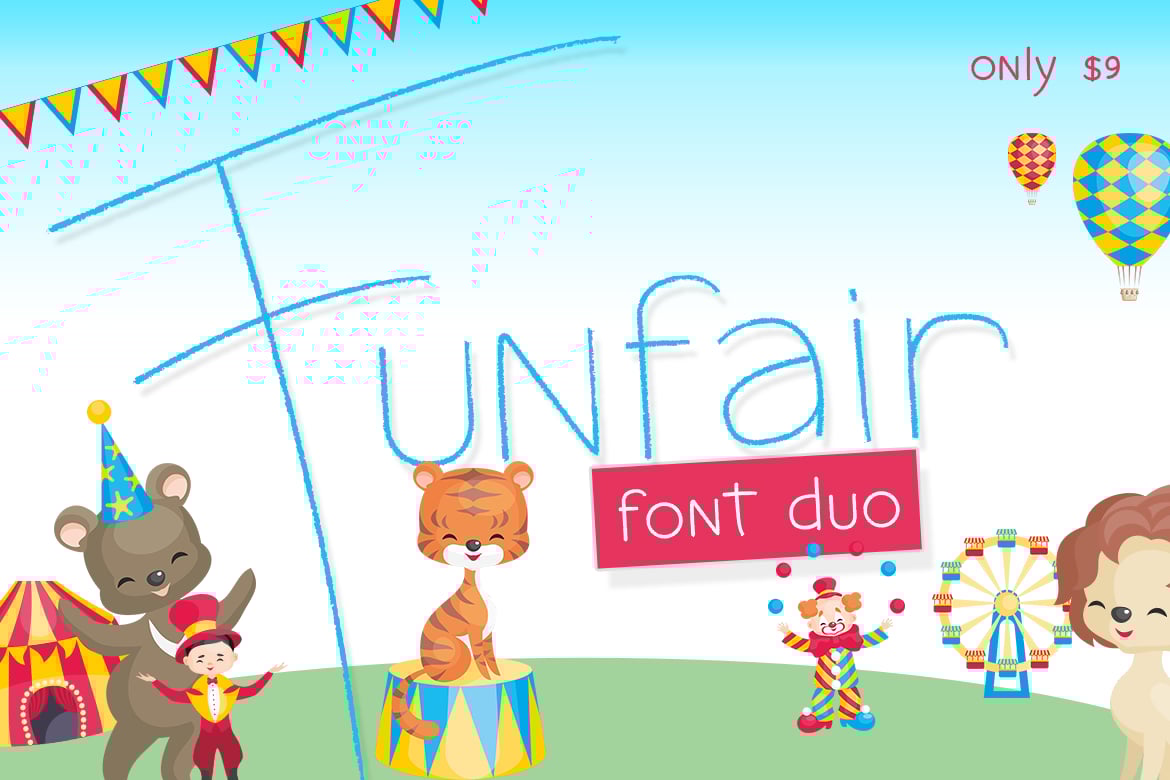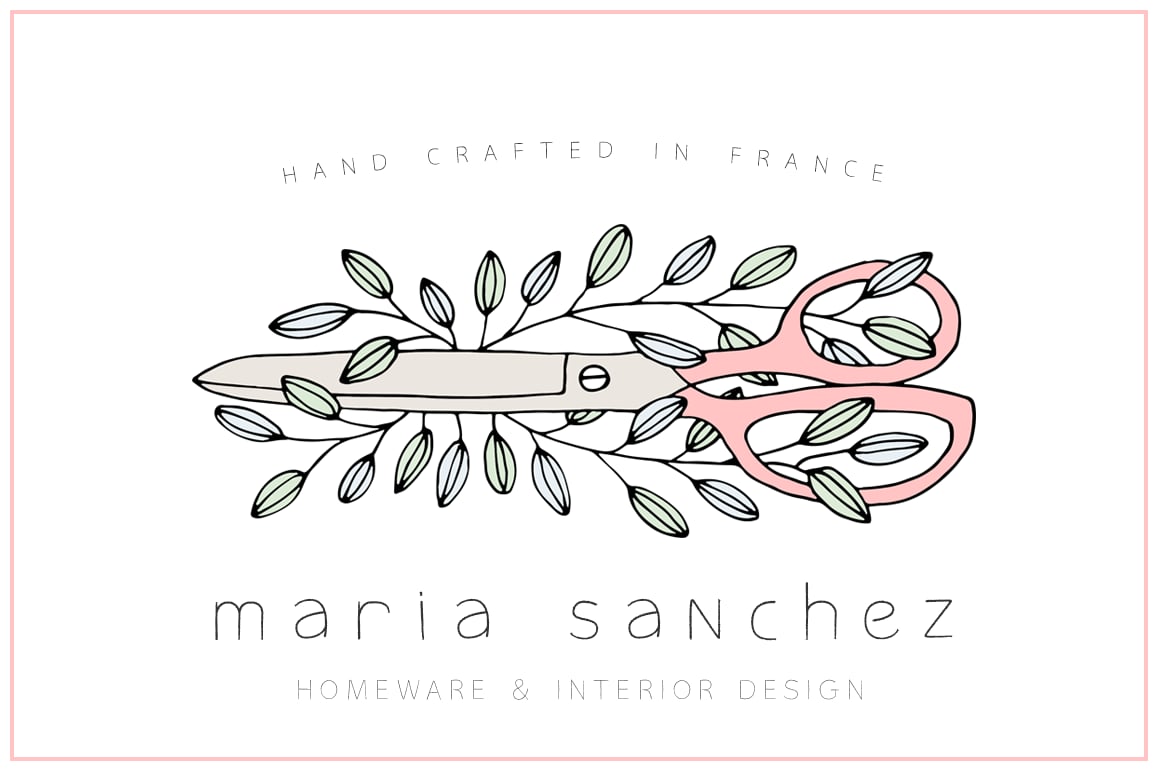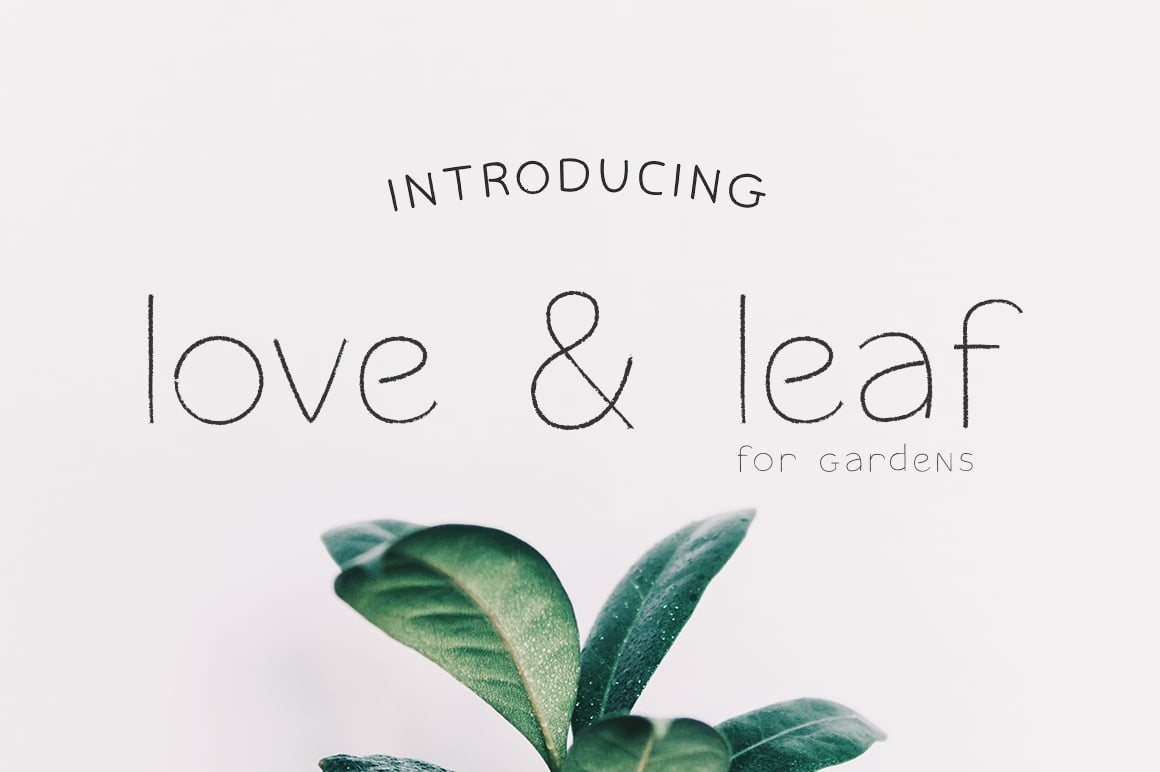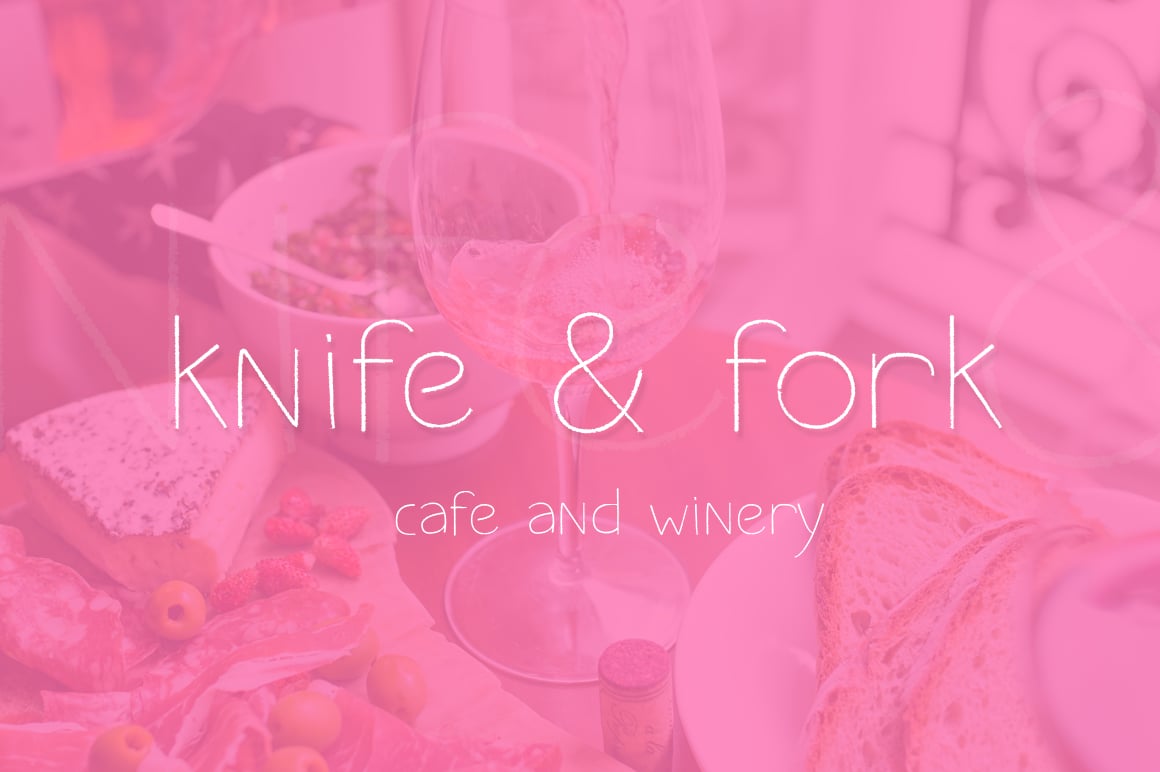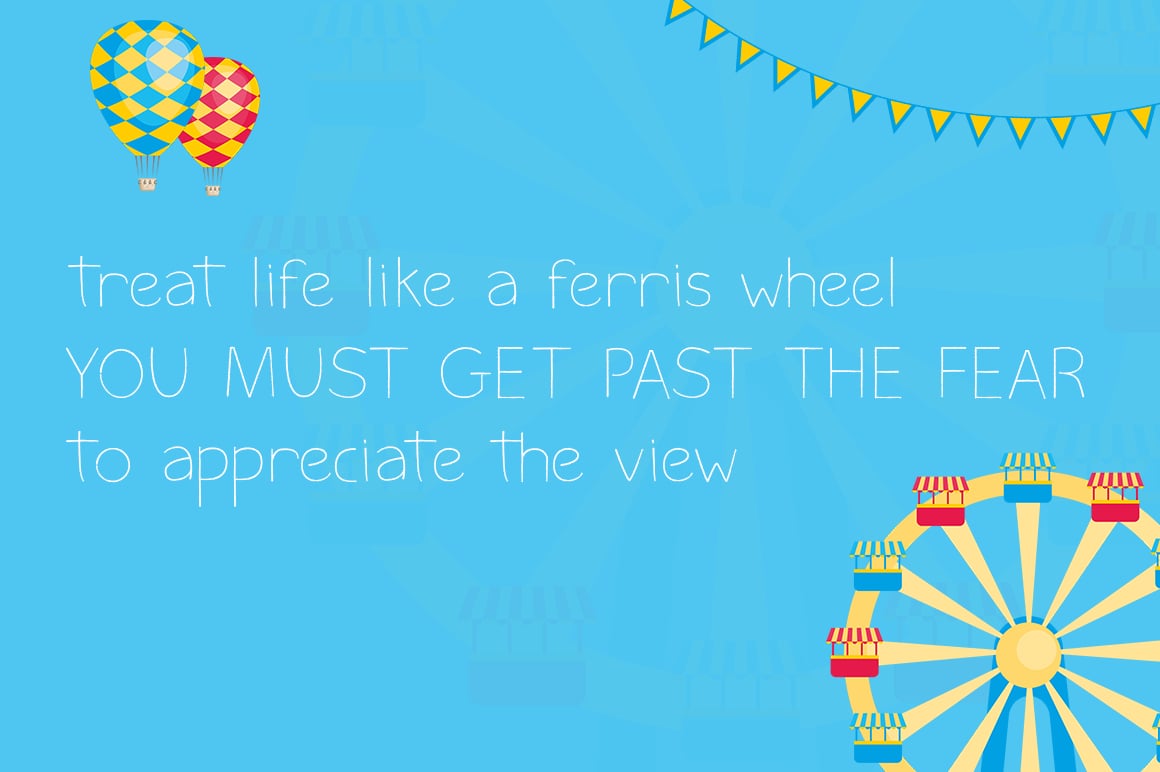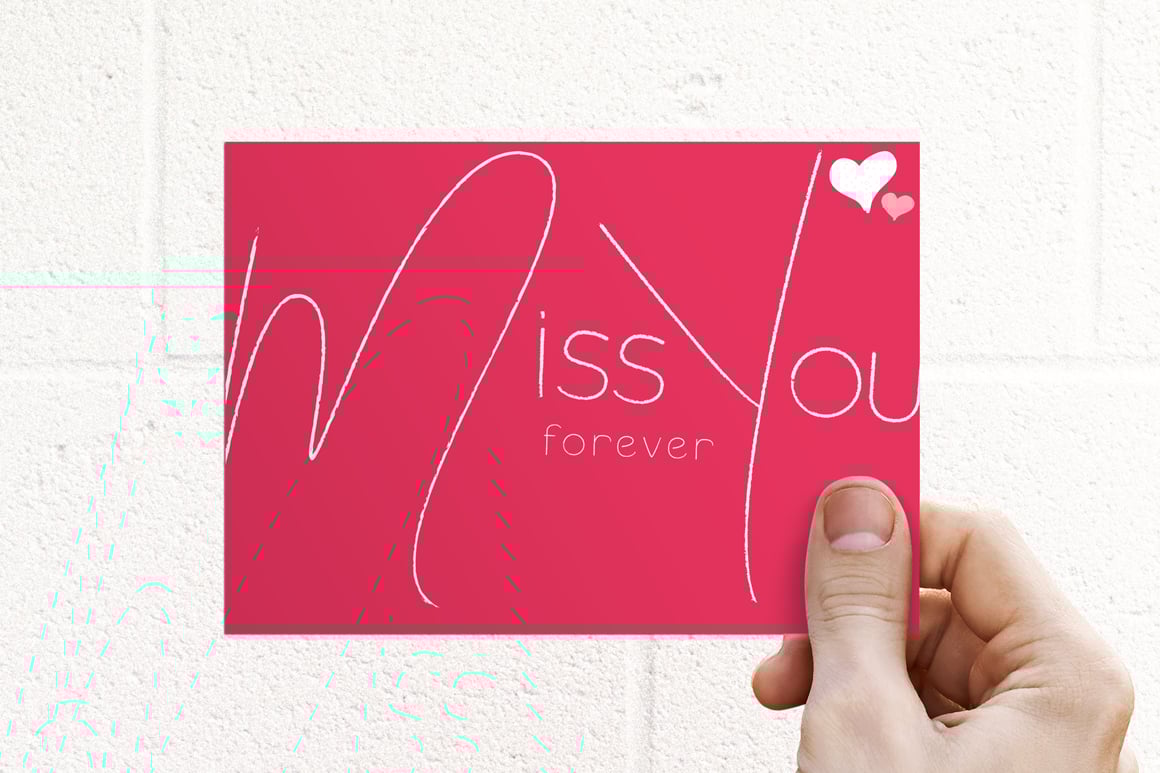
Funfair Font
Introducing the amazing Funfair duo! Including a fabulously quirky regular font with extra large (like a clowns shoes) caps and complimenting straight, textured lowercase. The second font (Funfair Caps) perfectly compliments the regular, much like candy floss and corn dogs! Enjoy!